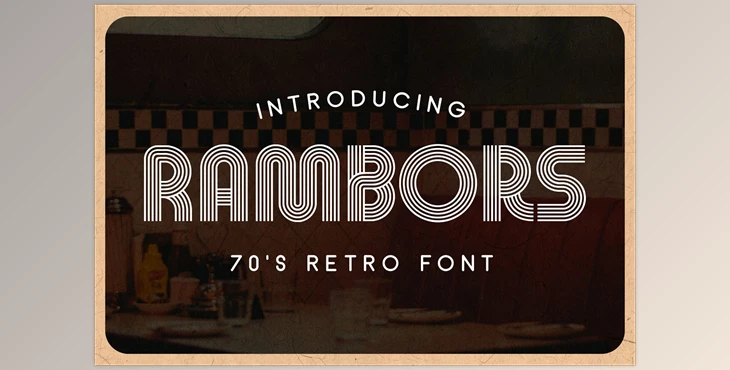
Rambors – Retro Font CreativeMarket 6948187:
Presenting Rambors, a multiline display font that is inspired by 70s-inspired designs that offers a futuristic look and fun design. It's a very nostalgic typeface ideal for modern-futuristic designs and modern fashion.
Rambors is a very attractive font that can be seen on headlines that you use in your flyer, poster motion graphic, or sticker. It is an all-caps typeface with distinct uppercase and lowercase letters and offers many options to consider a variety of designs. Additionally, it comes with alternative characters.